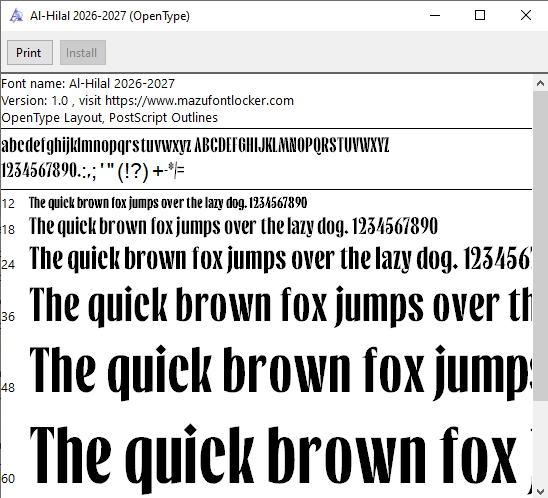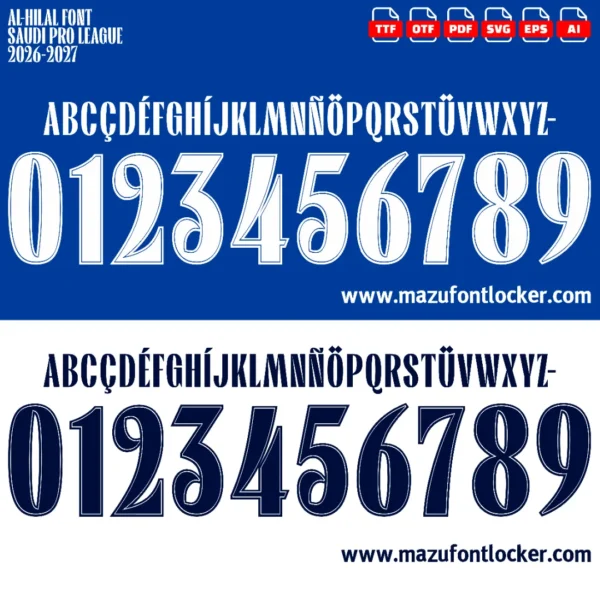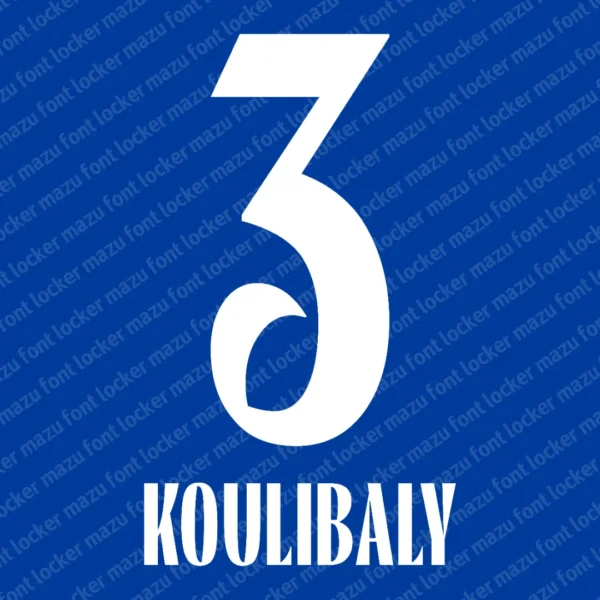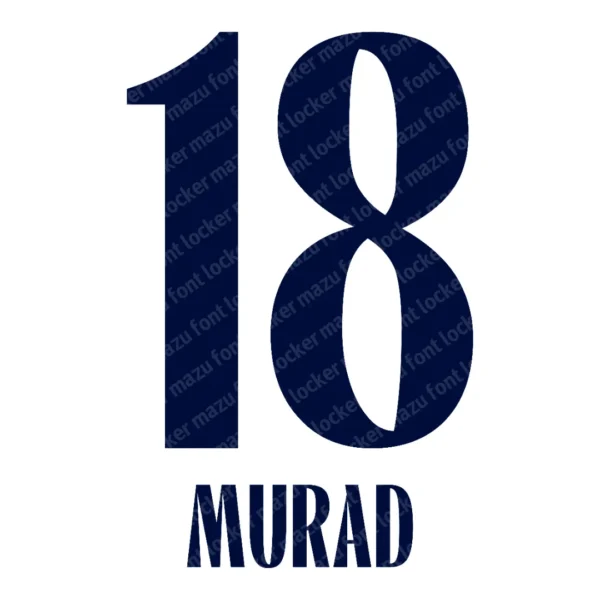
Al-Hilal 2026-2027 Font Vector – Epic Al-Zaeem Blue Wave Masterpiece
This font captures the commanding, razor-sharp, thunderous, and majestic lettering that perfectly embodies Al-Hilal’s iconic club identity, proud Saudi heritage, never-say-die mentality, and raw football power — delivering unmatched authenticity, premium quality, explosive energy, and elite dominance for professional jersey mockups, dynamic football graphics, premium sports branding, passionate fan creations, and high-end design projects.
Al-Hilal 2026-2027 Font Vector – Iconic Blue Typeface
The Al-Hilal 2026-2027 Font Vector is a premium typeface that accurately recreates the official match lettering worn by Al-Hilal during the 2026-2027 season. This high-quality vector font kit captures the bold, modern, and instantly recognizable typography that perfectly complements the club’s iconic blue identity.
Designed for professional designers, football enthusiasts, and passionate Al-Hilal supporters, the Al-Hilal 2026-2027 Font Vector delivers exceptional authenticity for creating realistic jersey mockups, football merchandise, social media graphics, match posters, and custom fan artwork. Every character has been carefully recreated to match the powerful and luxurious visual style of one of Asia’s most dominant football clubs.
This font stands out thanks to its precise vector construction and authentic club styling. Every letter and numeral has been meticulously recreated to match the official shirt lettering used throughout the 2026-2027 Saudi Pro League and AFC Champions League campaigns. Whether you’re producing professional kit templates or creating eye-catching football content, the Al-Hilal 2026-2027 Font Vector delivers a genuine match-ready appearance.
The lettering featured in the Al-Hilal 2026-2027 Font Vector combines clean geometric lines with powerful modern proportions. The result is a premium and highly readable typeface that reflects Al-Hilal’s winning mentality, ambition, and passionate fanbase.
• Complete uppercase A–Z alphabet and numbers 0–9 in authentic Al-Hilal 2026-2027 style
• Includes authentic Saudi Pro League and AFC badge glyph placement beneath player numbers
The Al-Hilal 2026-2027 Font Vector is an independently designed typeface package inspired by the official shirt lettering for the 2026-2027 season. It has been carefully recreated for football enthusiasts, graphic designers, collectors, and creators producing custom jersey concepts, football artwork, and fan-made projects.